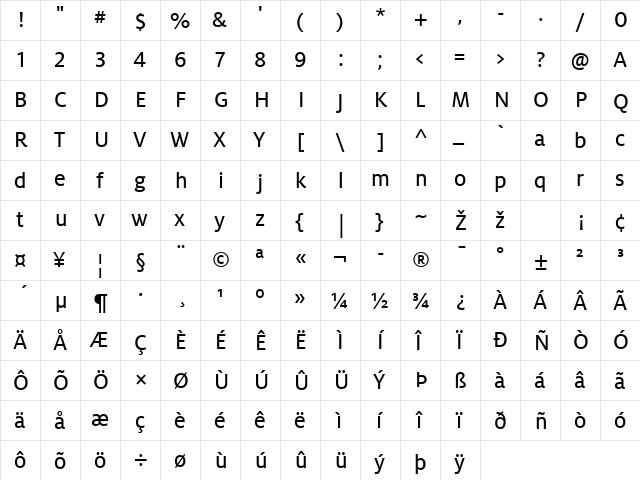
MiloLF-Text Regular
| Foundry | FSI Fonts und Software GmbH |
| Designer | Mike Abbink |
Design Context for MiloLF-Text Typeface
MiloLF-Text is a composed and adaptable typeface that performs quietly and consistently across a wide range of design contexts.